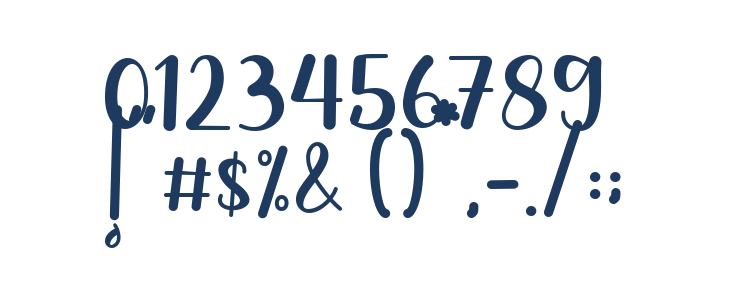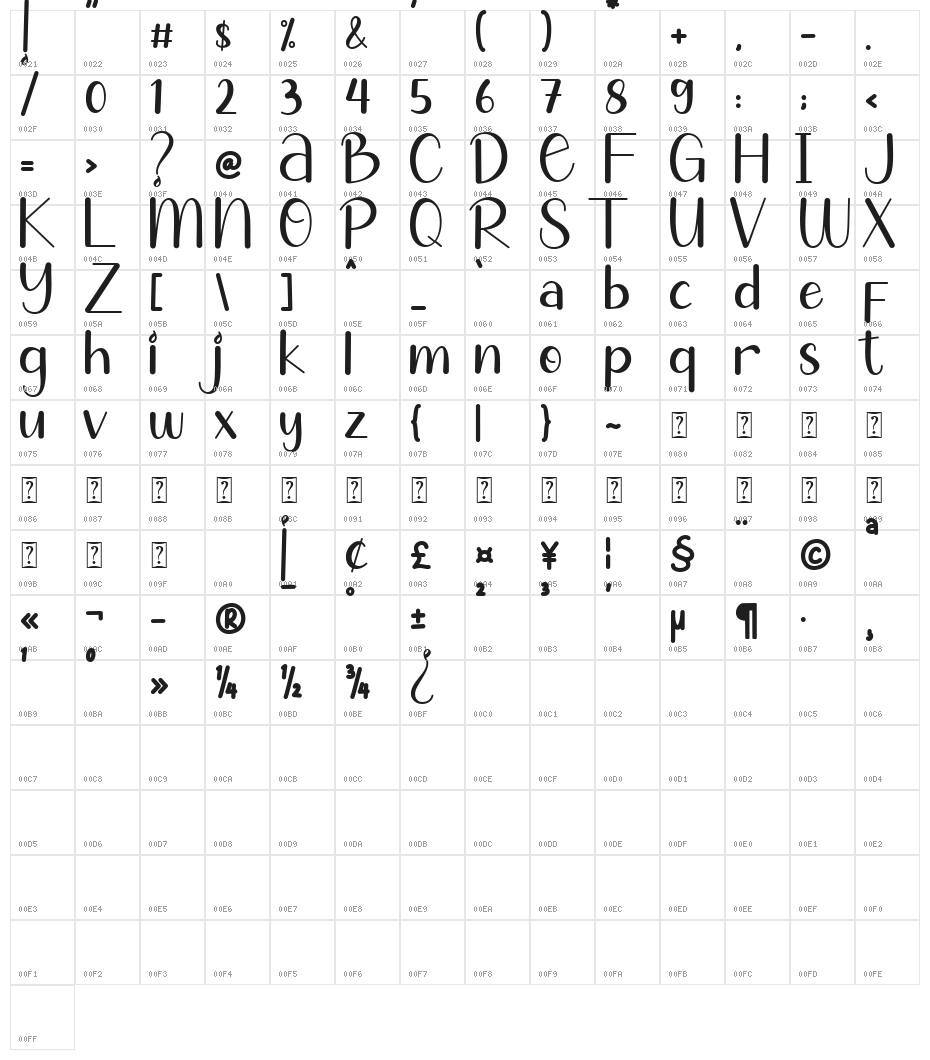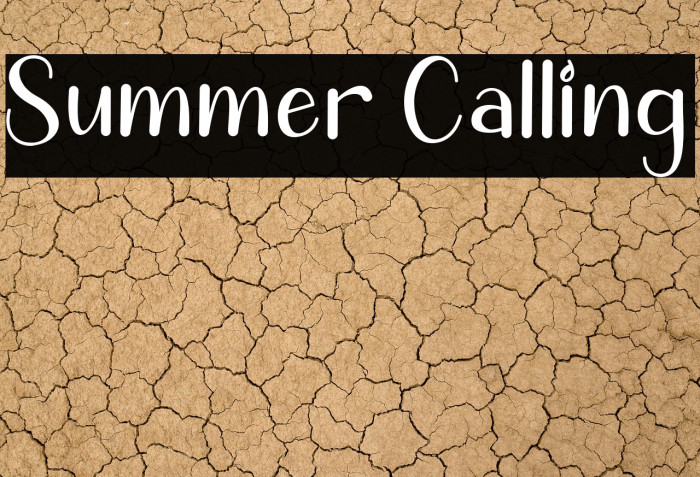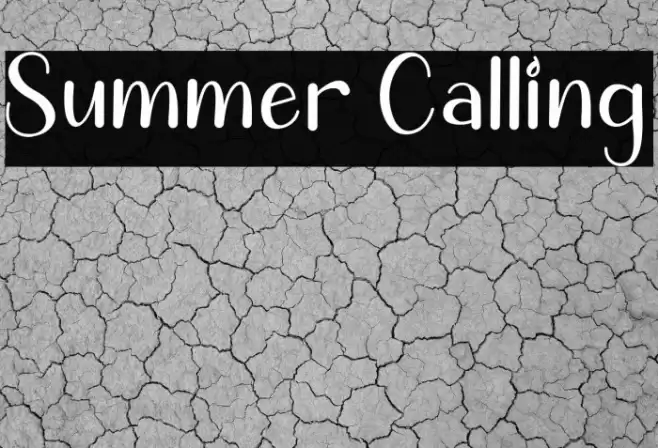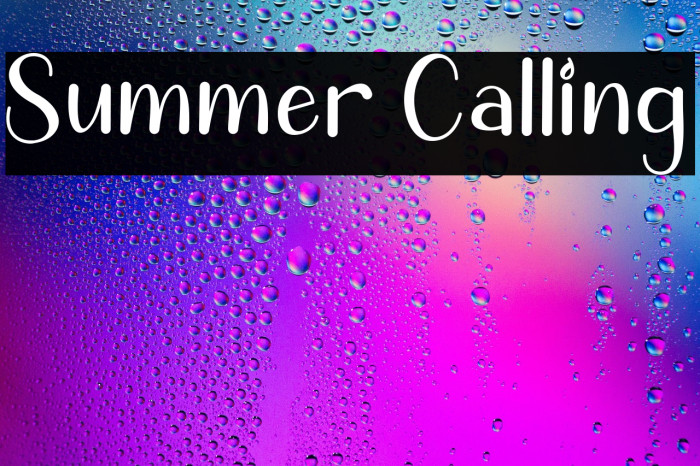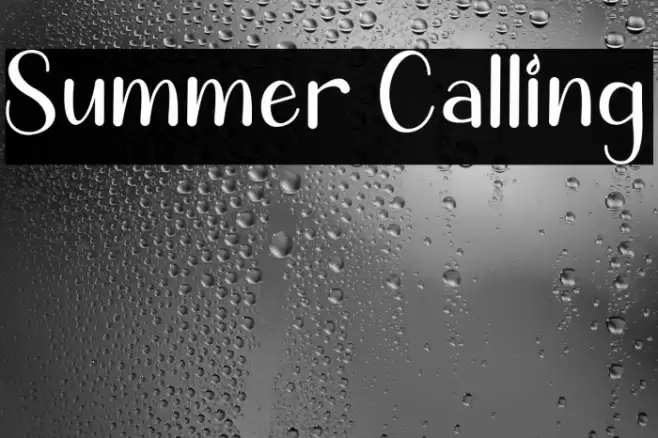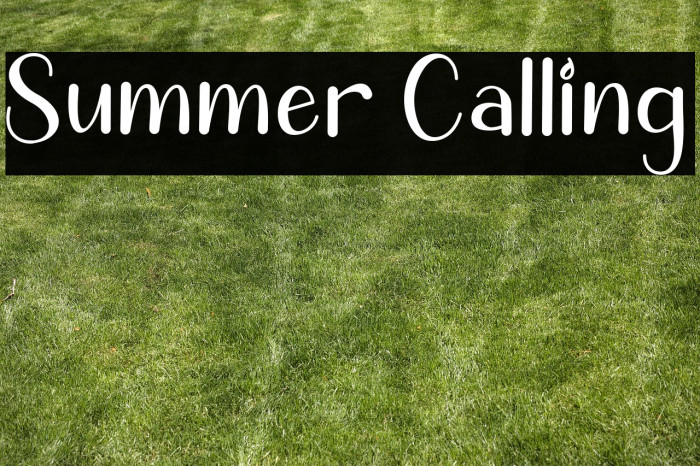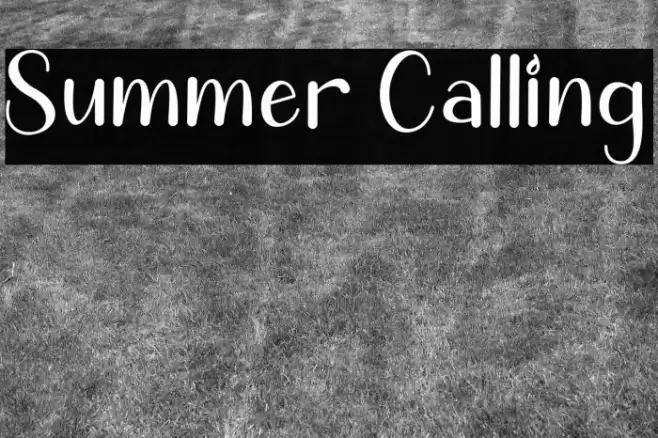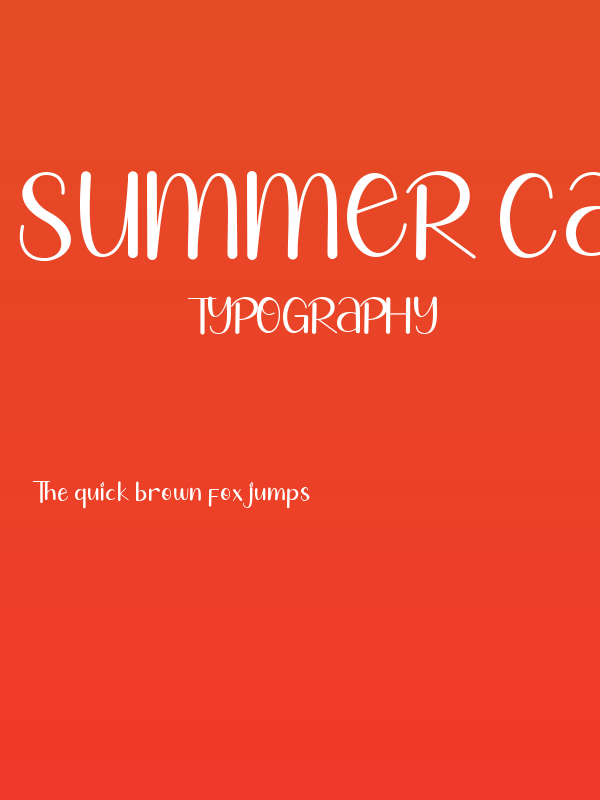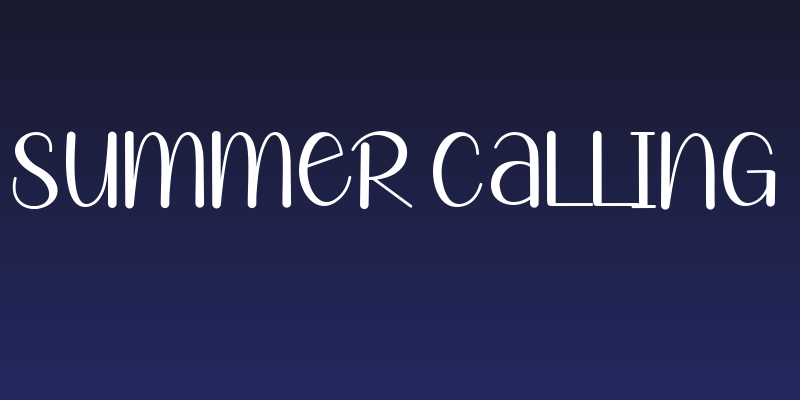
Summer Calling Font
Summer Calling Description
This font exudes a playful and whimsical charm, characterized by its flowing, handwritten style. The uppercase letters are tall and slender, with a slight slant that adds a dynamic feel. The lowercase letters are more rounded and compact, creating a harmonious balance. The numerals are bold and slightly exaggerated, enhancing the font's lively personality. Special characters are creatively designed, maintaining the overall playful aesthetic. This font is perfect for projects that require a touch of fun and creativity, such as children's books, invitations, or branding for playful products.
| Proposed Projects | Ideal for children's books, playful branding, invitations, and creative projects. |